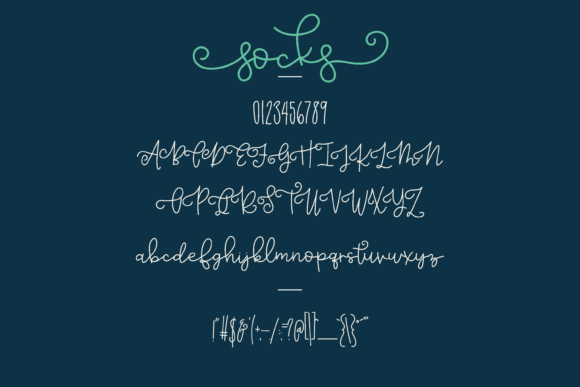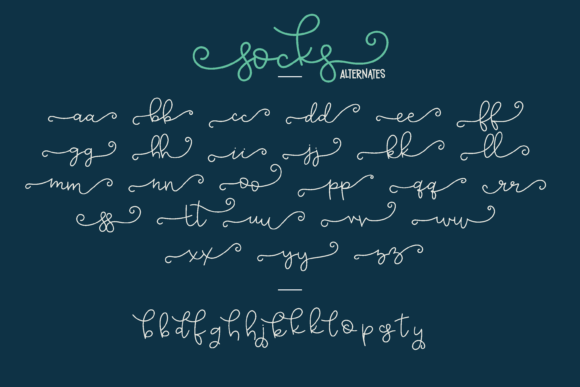
Introducing “Mismatched Socks,” a quirky and playful font duo that combines bold, uppercase characters with a flowing script. This unique pair creates the perfect balance for any creative project, offering a fun, mismatched style that adds charm to your designs. Ideal for crafting, branding, invitations, and more, the versatility of Mismatched Socks ensures it fits a variety of themes. With alternates and bonus swashes, this font duo allows endless customization, giving each design a personal touch. Perfect for any project needing a cheerful and whimsical vibe!
Mismatched Socks Font